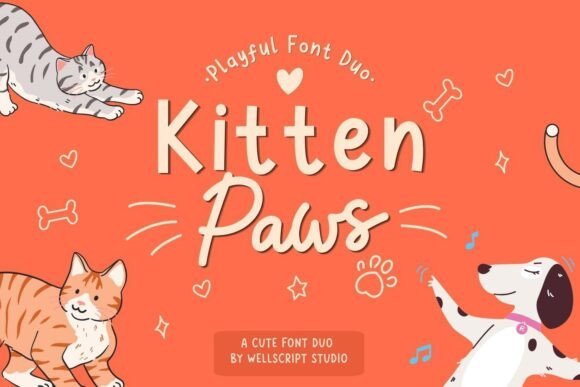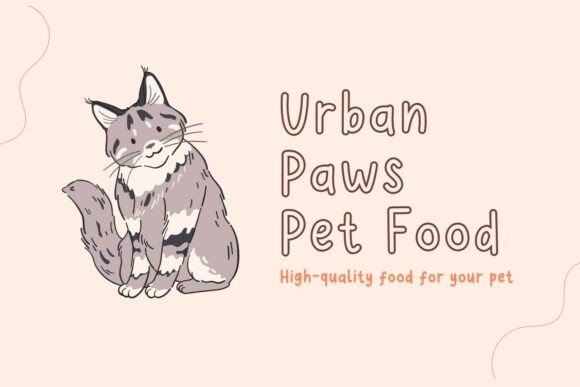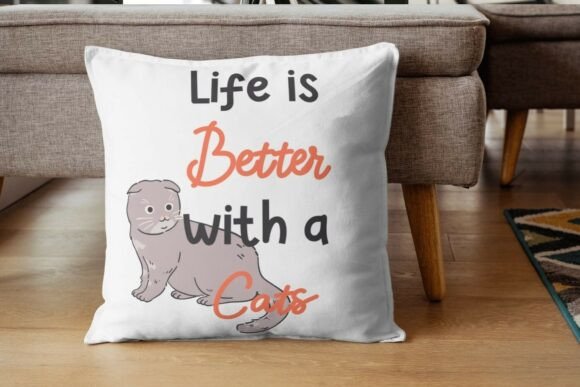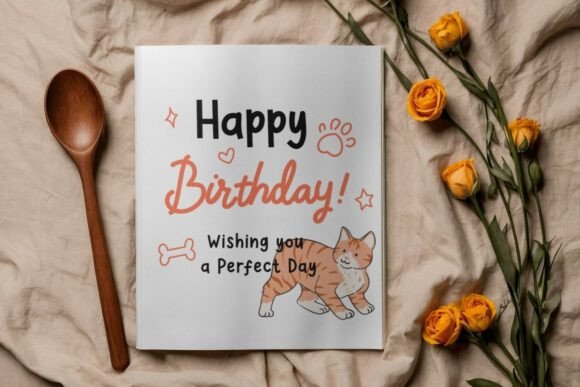
Meet Your New Best Friend: Kitten Paws Font
Have you ever stumbled upon a font that makes you go ‘awww’ and immediately know you have to use it in your next project? That’s exactly what happened to many designers when they discovered the Kitten Paws Font duo. Its adorable, handwritten style is sure to bring a smile to your face and a touch of warmth to your designs.
Kitten Paws Font is designed to be the perfect addition to your creative toolbox, especially when working on projects that require a playful, charming vibe. With its soft rounded letters and lovely script look, this font is ideal for a wide range of applications, from pet branding and kids’ products to packaging, stickers, and social media posts.
Kitten Paws Font Key Features
- Unique Characteristics: The Kitten Paws Font features a unique, playful, and whimsical design with adorable kitten footprints incorporated into the font characters, adding a touch of cuteness and personality to any text.
Kitten Paws Font Review
Overall, I think the Kitten Paws Font is a cute and playful addition to any design project. ✨ Its rounded edges and whimsical feel make it perfect for child-friendly content, social media graphics, or even e-commerce branding.
One of the things I love about this font is its versatility. ✨ It comes in a range of weights and styles, from light to bold, which makes it easy to use in a variety of contexts. The font is also highly customizable, allowing designers to adjust the spacing, size, and color to suit their needs.
However, there are a few limitations to keep in mind. ⚠️ The font can be a bit difficult to read at small sizes, and the rounded edges can sometimes make it look a bit sloppy. Additionally, the font may not be the best choice for formal or professional designs, as it can come across as a bit too playful.
Design Considerations
- Best used for: Child-friendly content, social media graphics, e-commerce branding, and casual designs.
- Not recommended for: Formal or professional designs, small text sizes, or projects that require a more serious tone.
- Font styles: Light, Regular, Bold, and Italic.
The Kitten Paws Font is a playful and whimsical font that is perfect for:
- Children’s book covers and illustrations.
- Wedding invitations and decorations.
- Party invitations and decorations.
- Any design that requires a cute and playful touch.
Remember to use the font in moderation and balance it with other design elements to avoid overwhelming the design.
Alternatives to Kitten Paws Font
Pacifico is a beautiful, elegant font ideal for use in branding, invitations, and other creative projects where a touch of sophistication is desired. It has a similar handwritten feel to Kitten Paws Font, but with a more refined and polished appearance.
Comparison: While Kitten Paws Font is more playful and whimsical, Pacifico is more sophisticated and elegant. Pacifico is better suited for formal designs, whereas Kitten Paws Font is more suitable for casual or children’s projects.